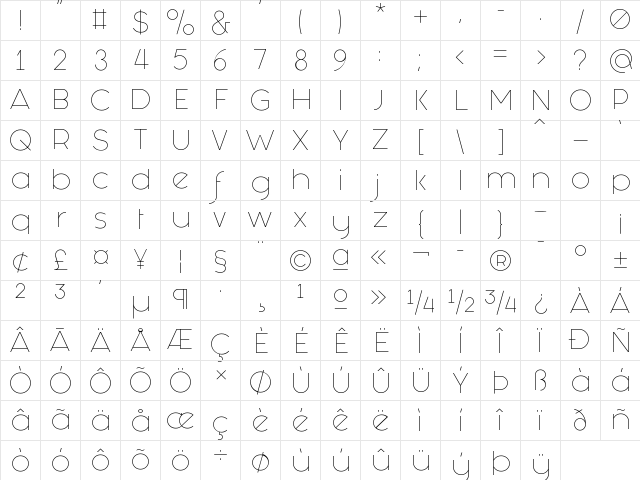
Fashion Fetish Light Regular
Foundry: Levi Szekeres
Designer: Levi Szekeres
Complete Fashion Fetish Light Regular glyph index. Displaying only characters natively supported by Fashion Fetish Light Regular font.
Design Context for Fashion Fetish Light
Fashion Fetish Light is a composed and adaptable typeface that performs quietly and consistently across a wide range of design contexts. Its slender proportions lend an understated elegance to any composition.